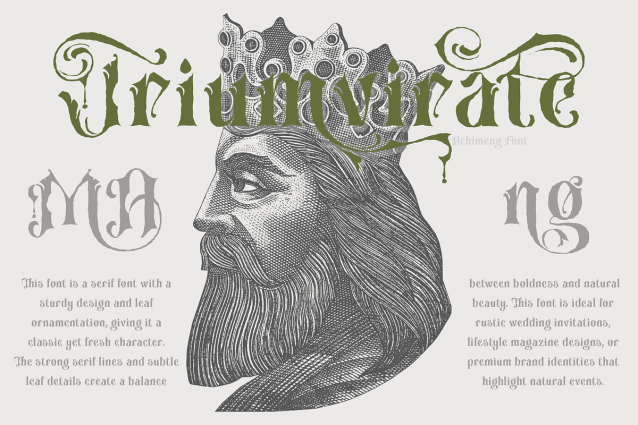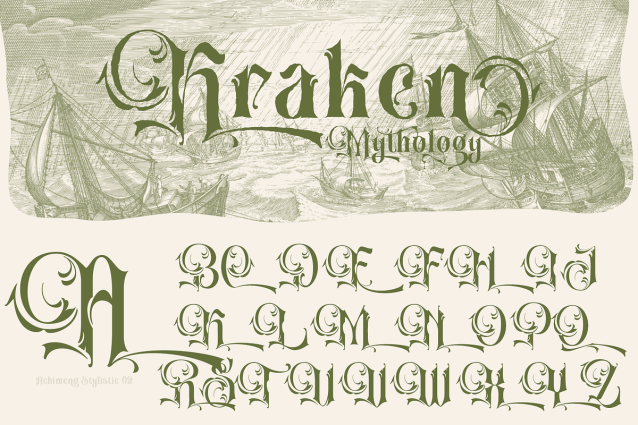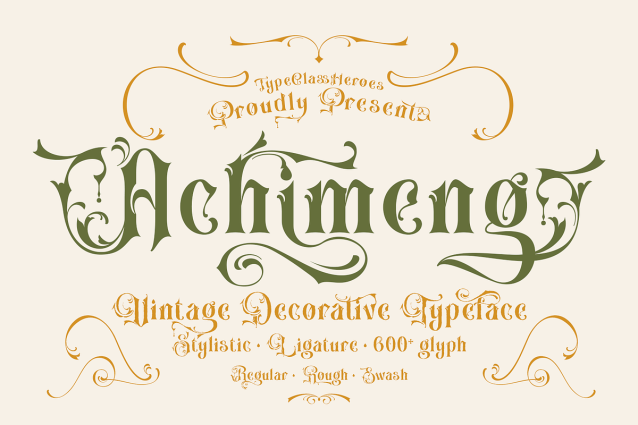
Achimeng Font
Achimeng Font is a decorative serif font with a sturdy design and leaf ornamentation, giving it a classic yet fresh character. The strong lines and subtle leaf details create a balance between boldness and natural beauty. Come with regular and rough versions with ornament swash identities that highlight nature. Perfect to be applied in various formal forms such as invitations, labels, restaurant menus, logos, make up, stationery, novels, magazines, books, greeting / wedding cards, packaging, labels or any type of advertising purpose makes it ideal for whether you’re creating digital content or printed materials.